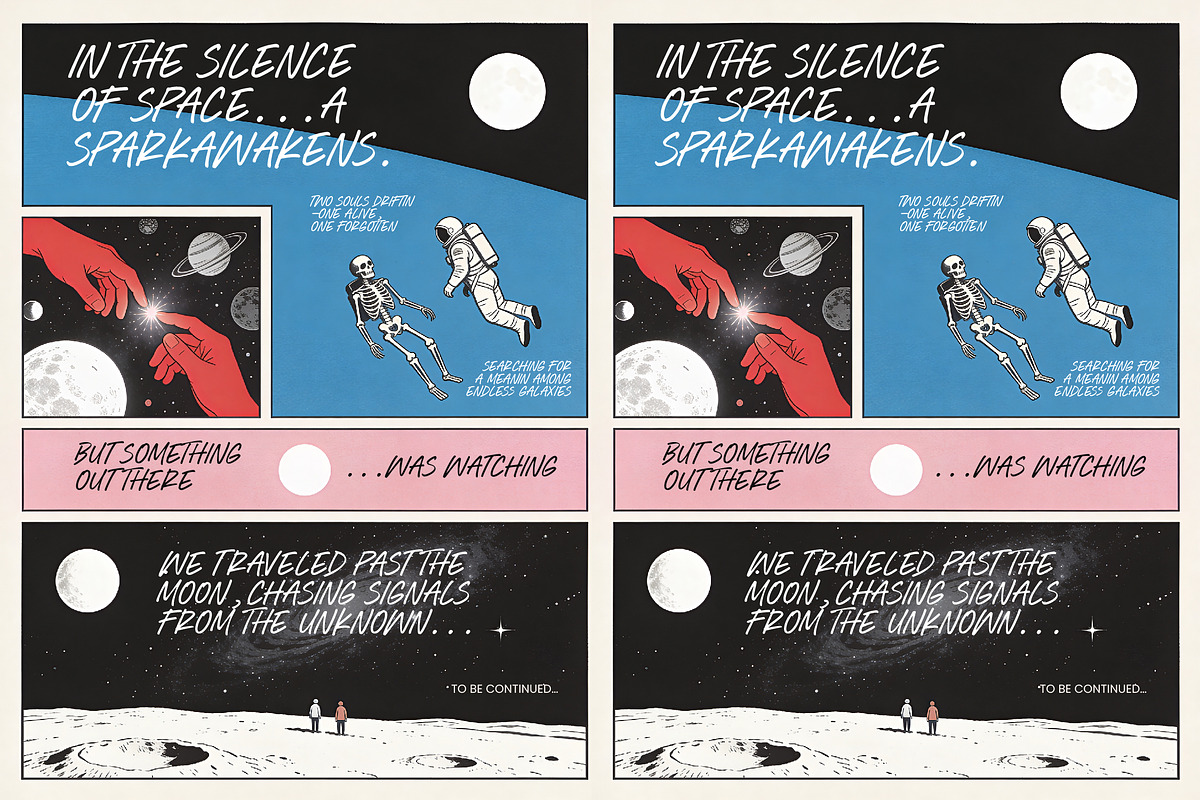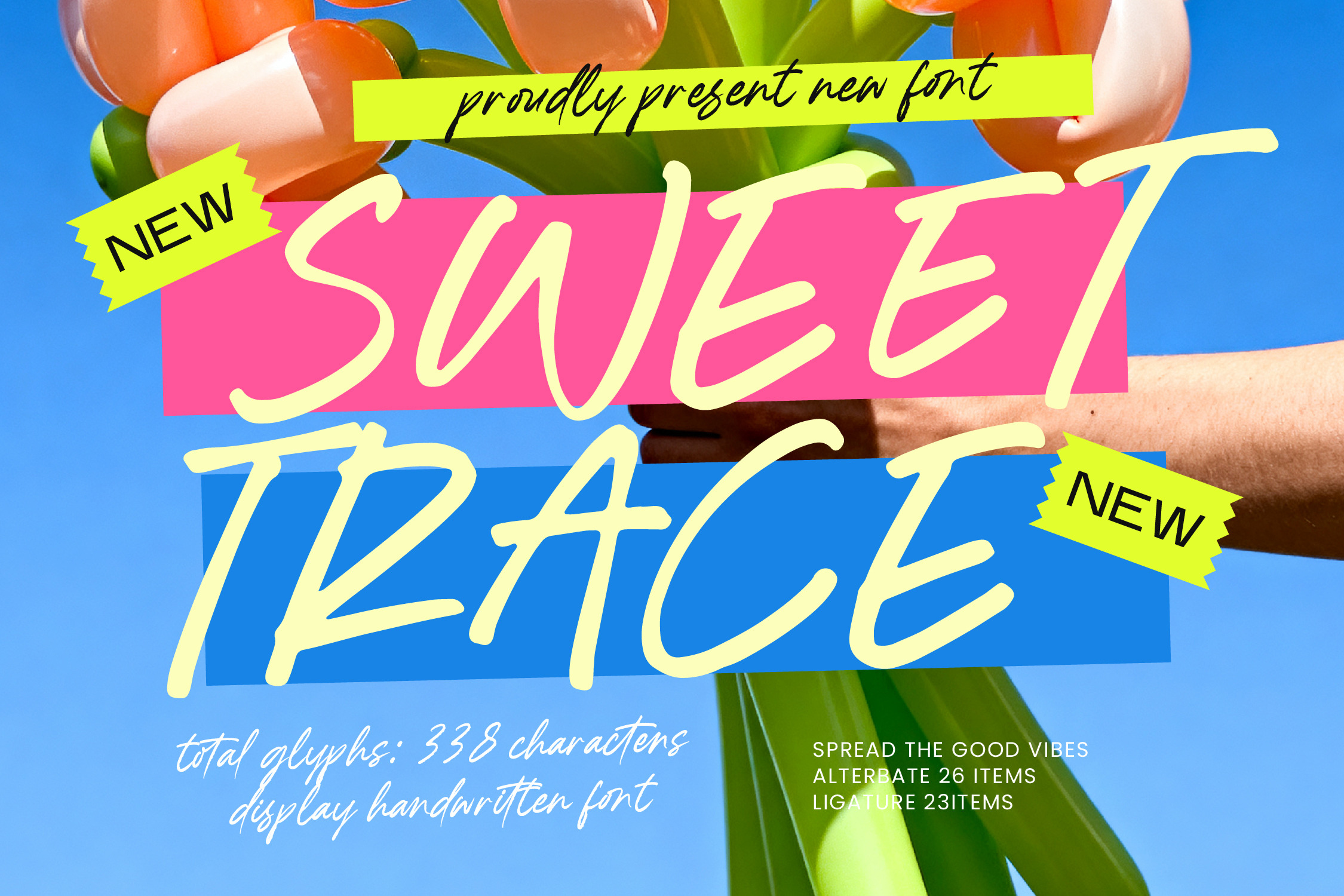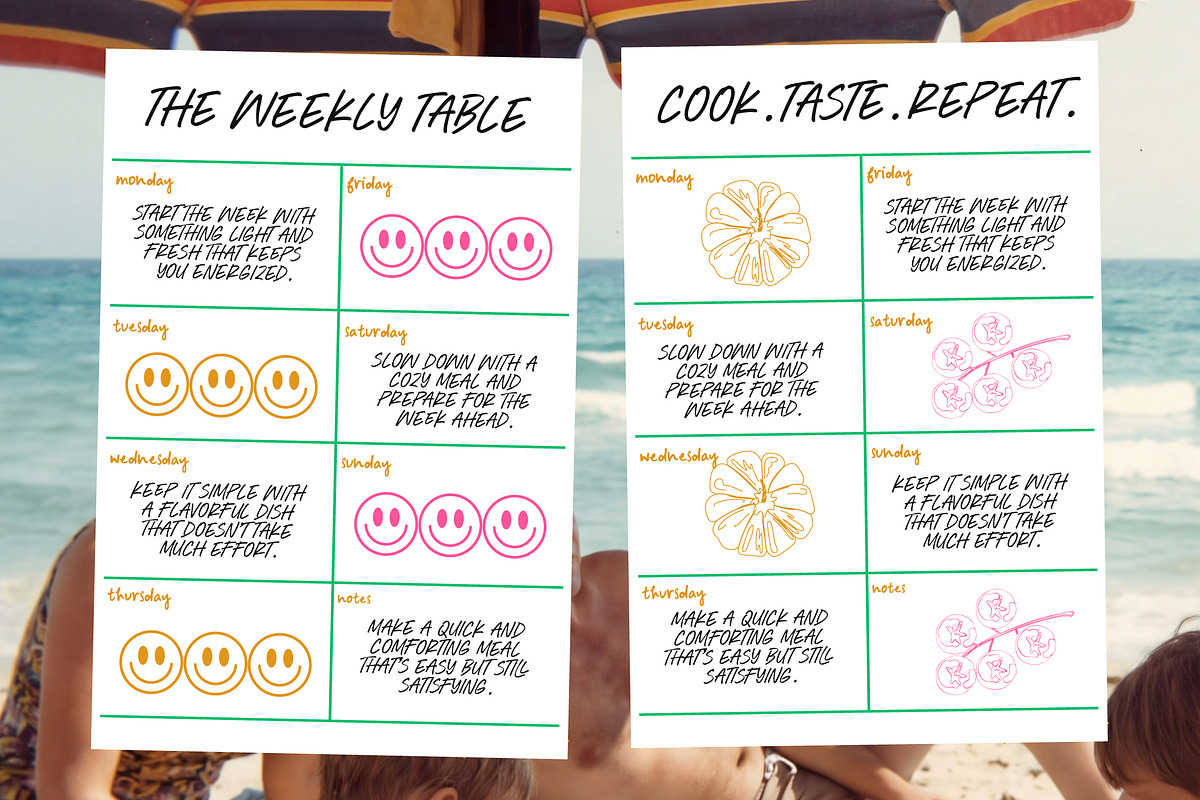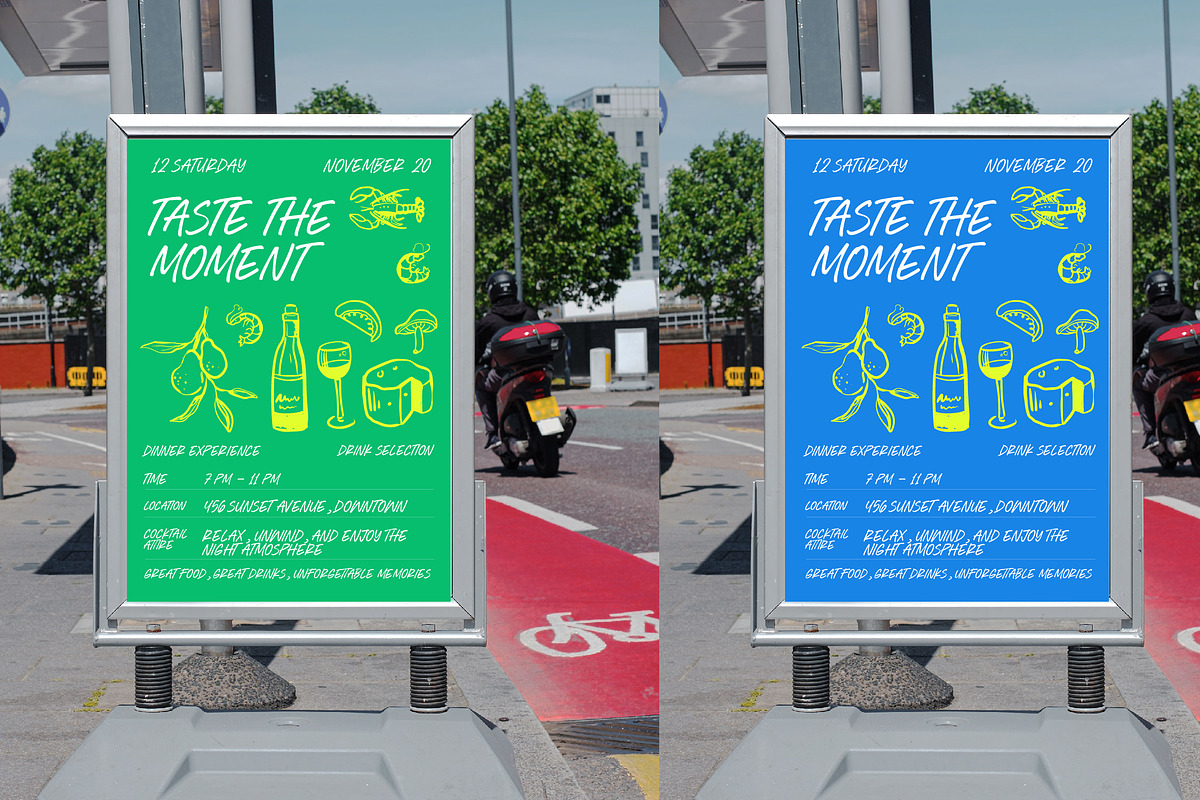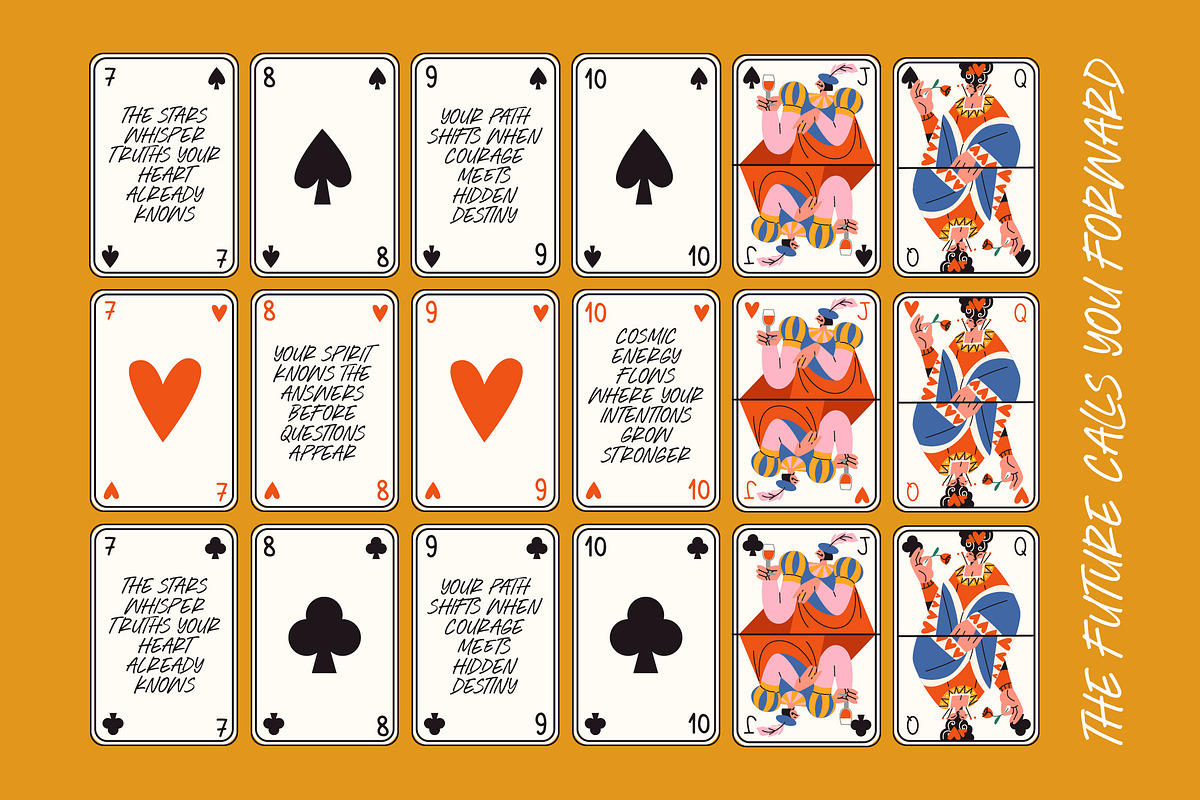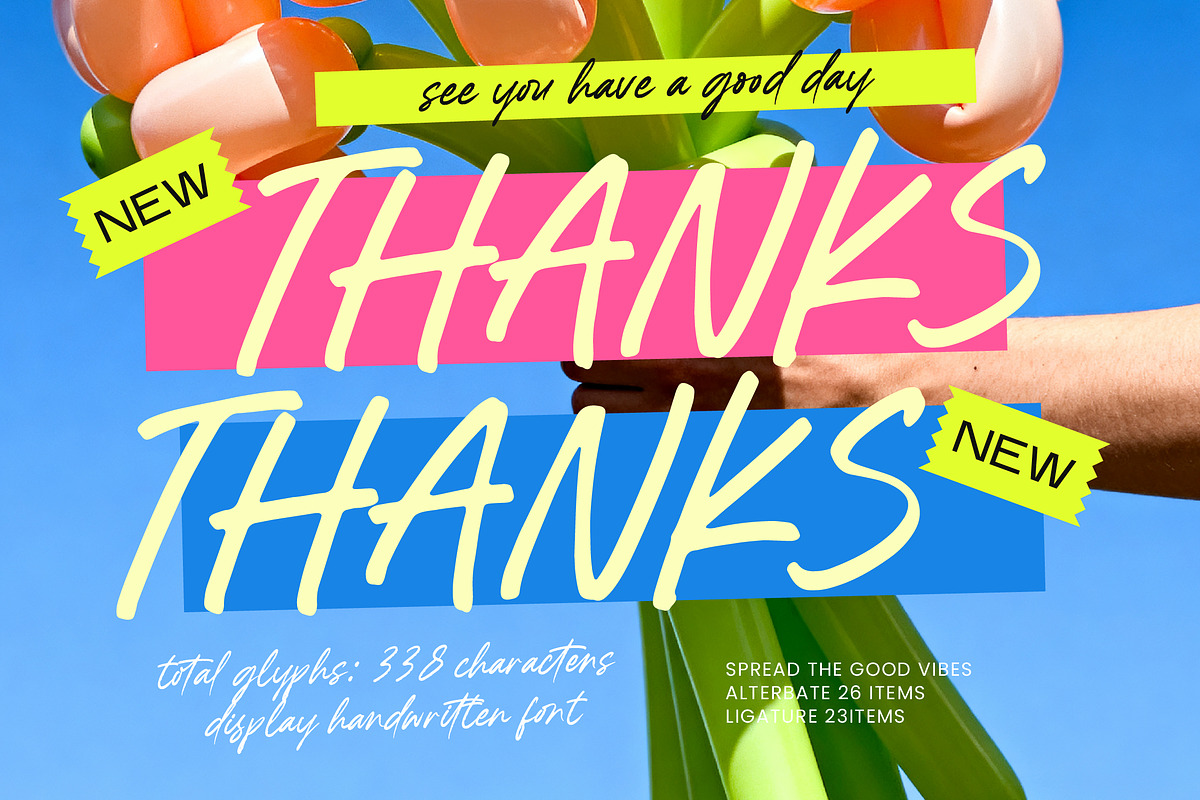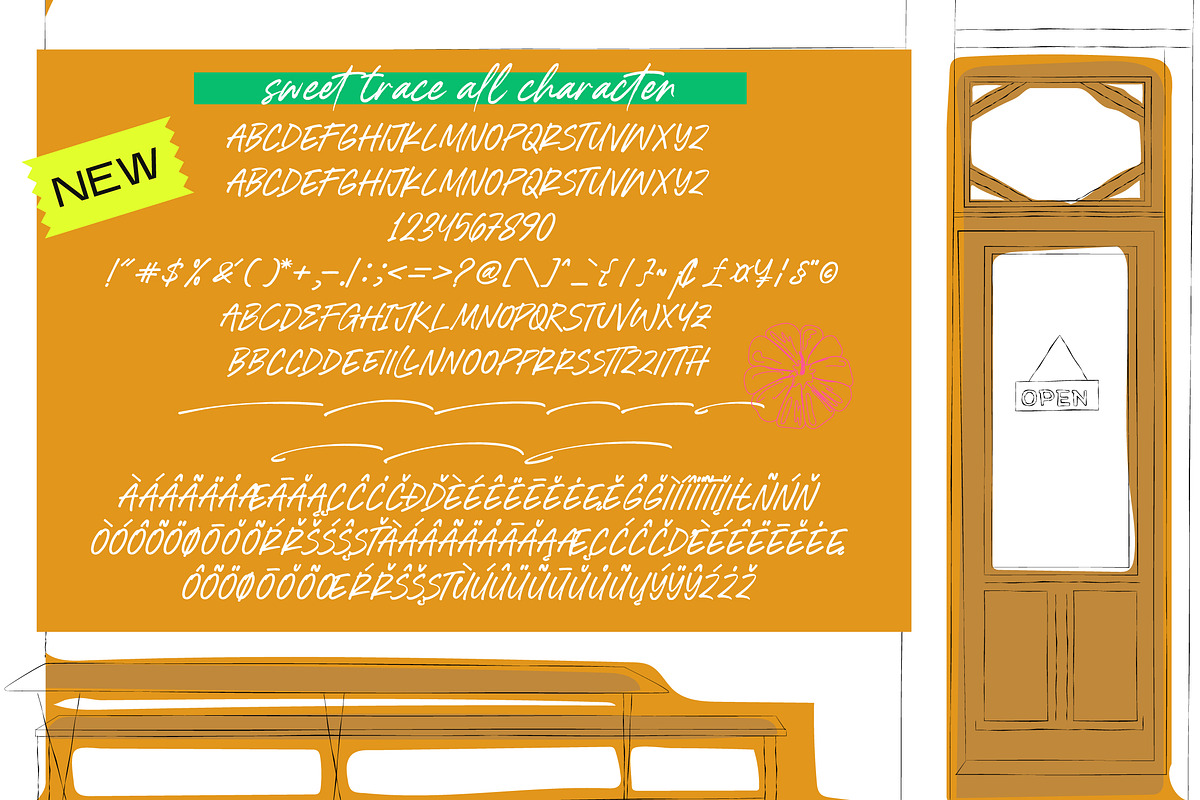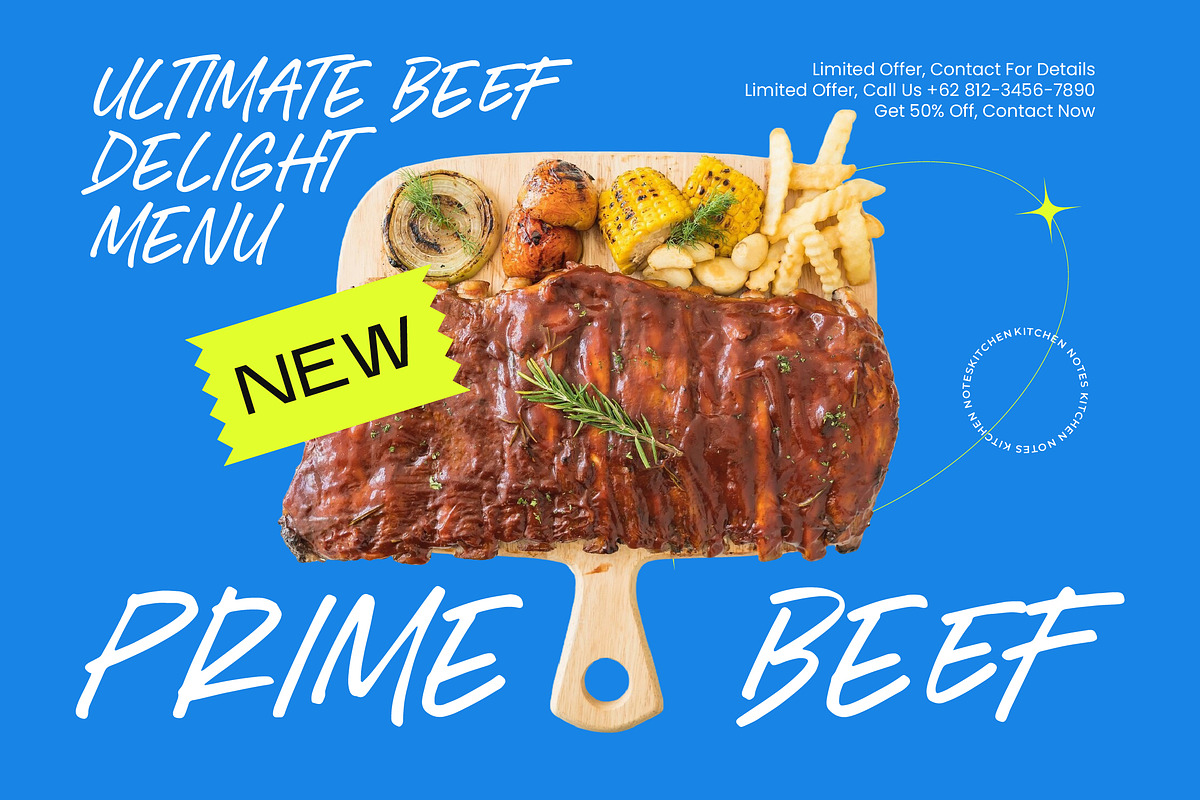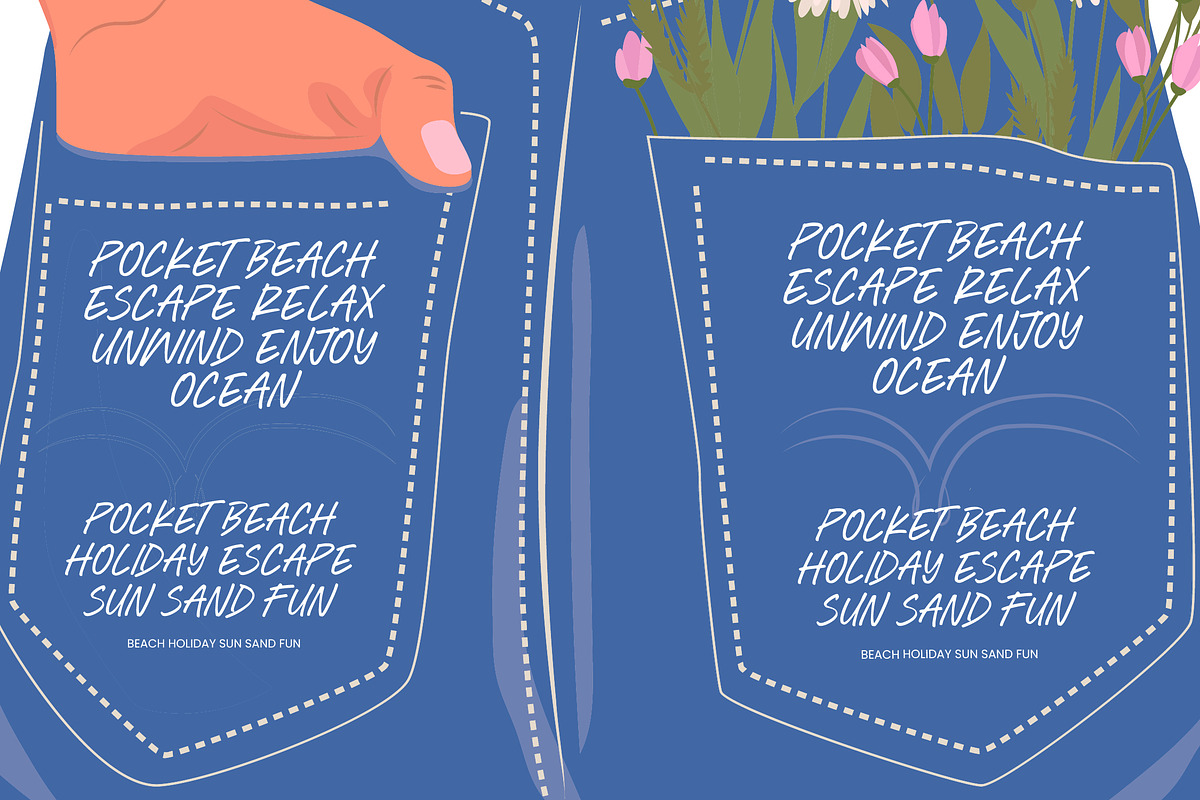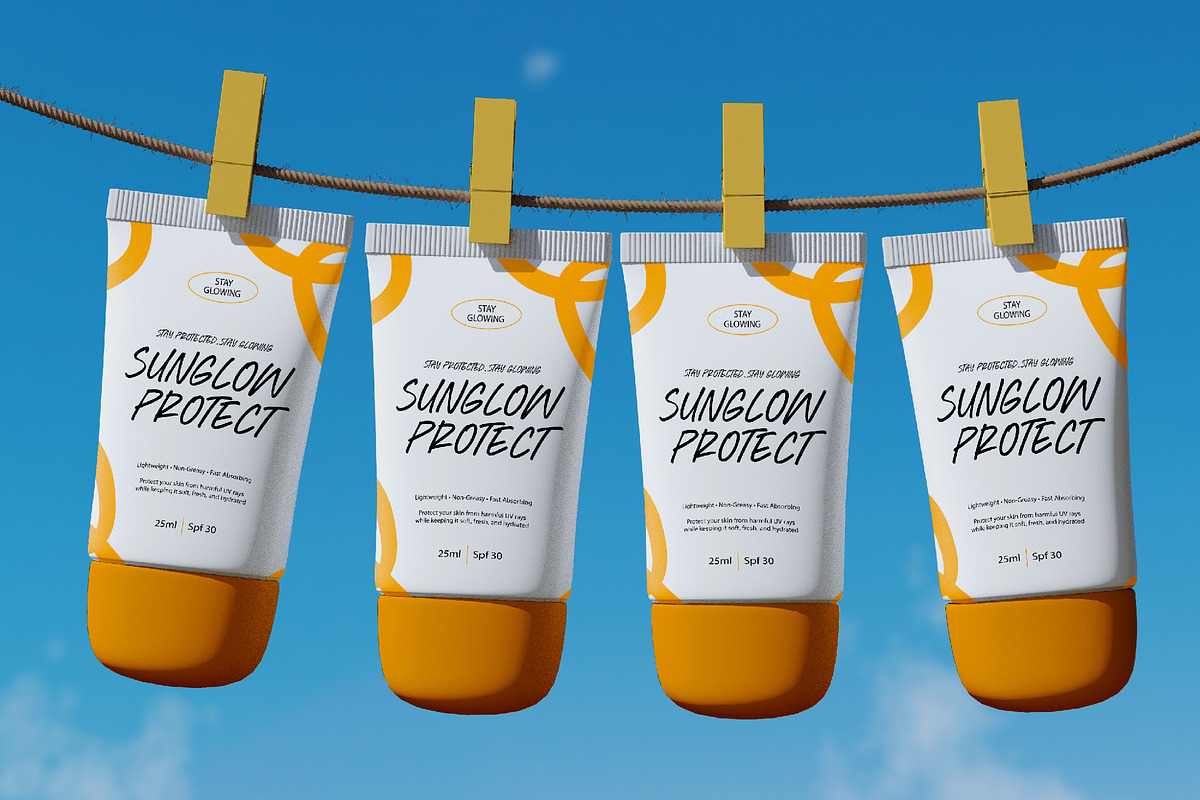
Sweet Trace Display Handwritten Font
Sweet Trace - Display Handwritten Font , Elevate your creative projects with the vibrant energy of Sweet Trace - Display Handwritten Font. This expressive typeface captures the raw, authentic essence of marker-based calligraphy, offering a playful yet professional aesthetic. Designed to stand out, Sweet Trace - Display Handwritten Font features fluid strokes and a dynamic rhythm that brings an instant sense of personality and warmth to any digital or print canvas.
This versatile tool is the perfect choice for modern lifestyle branding, eye-catching packaging, and dynamic social media graphics. Whether you are developing creative advertisements, custom merchandise, or bold editorial designs, Sweet Trace - Display Handwritten Font provides the visual impact needed to engage your audience. It is perfect for projects that require a personal touch without sacrificing commercial clarity and professional polish.
Expanding your reach has never been easier with this robust character set. With its extensive multilingual support, Sweet Trace - Display Handwritten Font adapts seamlessly across global markets, making it incredibly versatile for international projects. By ensuring cross-cultural accessibility, Sweet Trace - Display Handwritten Font allows designers to maintain a consistent brand voice while communicating effectively with diverse audiences around the world.
Built for maximum creative flexibility, this font includes a comprehensive library of 338 characters, including unique ligatures and stylistic alternates. These features allow Sweet Trace - Display Handwritten Font to flow naturally, mimicking genuine handwriting for a custom-made feel. Invest in Sweet Trace - Display Handwritten Font today to give your typography a high-contrast, hand-crafted edge that resonates with modern consumers and design enthusiasts alike.